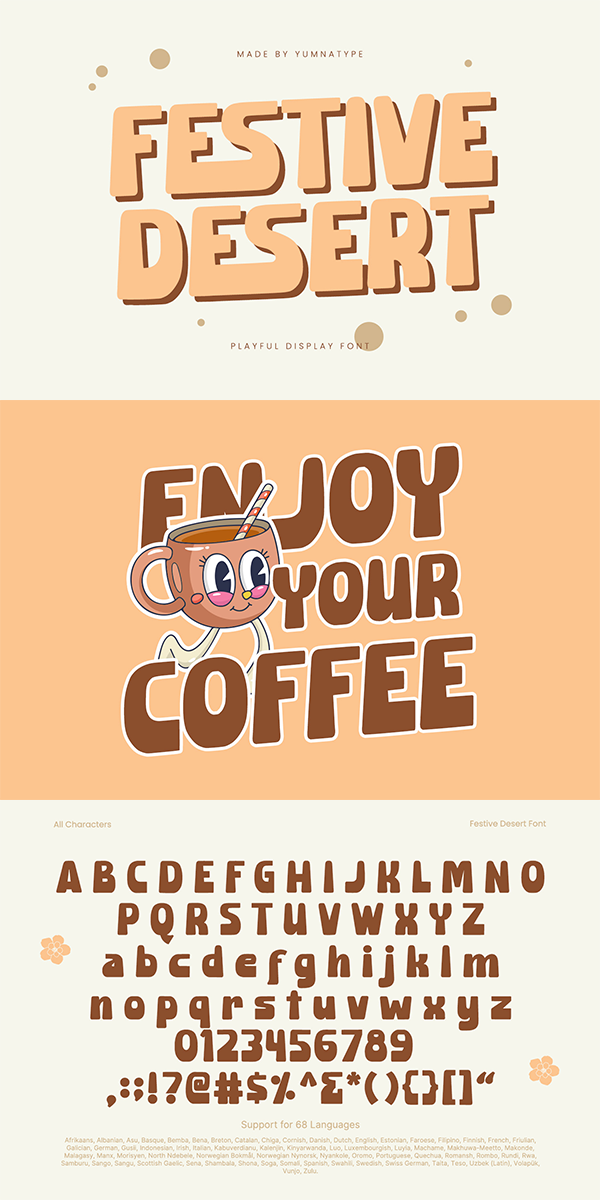
Festive Dessert Font
About Festive Dessert
Festive Dessert, a delectable display font that brings a playful twist to any project. Each letter of Festive Dessert is infused with charm and character, featuring rounded shapes that evoke the cozy feeling of homemade treats. The thick weight of the font adds to its bold presence, ensuring that your message stands out with confidence and clarity. With its low contrast, Festive Dessert maintains a harmonious balance between the thick strokes and rounded forms, creating a cohesive and inviting appearance. In addition, enjoy the features here.
Festive Dessert fits in headlines, logos, posters, flyers, branding materials, greeting cards, print media, editorial layouts, and many more designs. Find out more ways to use this font by taking a look at the font preview.